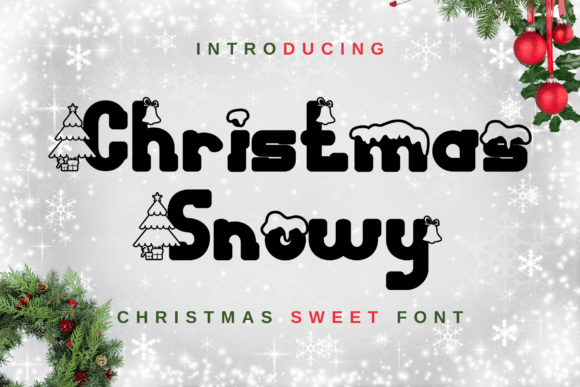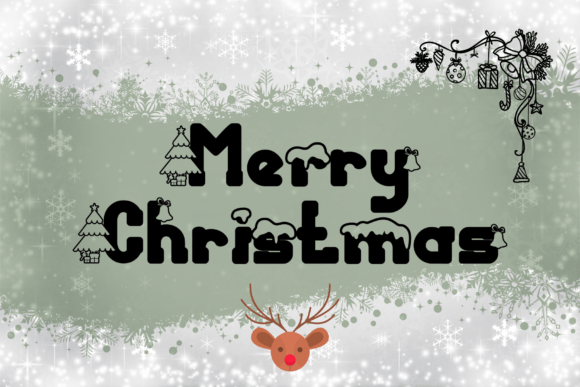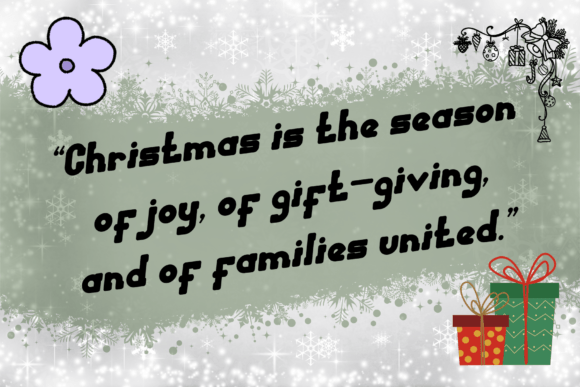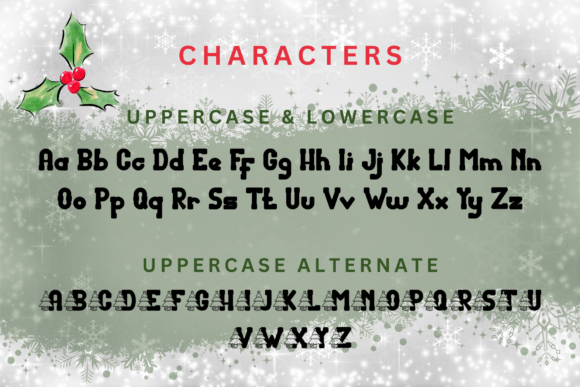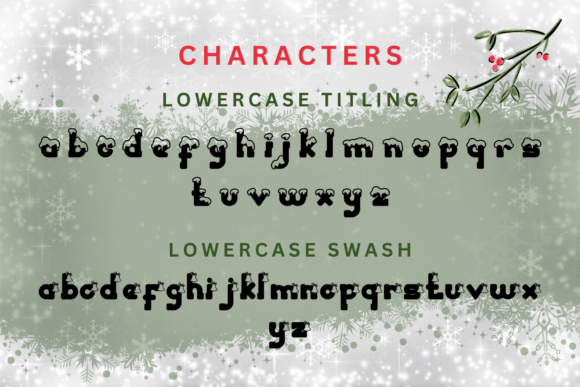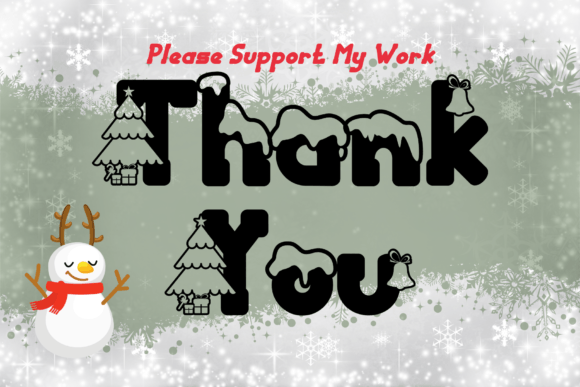
A Snowy Touch to Your Designs
It’s that time of the year when creativity takes over, and our imagination runs wild with festive ideas. You’re rummaging through your digital font library, searching for the perfect font to give your Christmas greeting cards, logos, or business cards a charming touch. That’s when you stumble upon the Christmas Snowy Font – a delightful and festive decorative font that’s sure to captivate your audience.
This enchanting font is perfect for adding a dash of magic to your designs. With its charming appearance and PUA encoded features, it makes it incredibly easy to access all the glyphs and ligatures you need to create stunning visuals. Whether you’re a seasoned designer or a creative enthusiast, the Christmas Snowy Font is a valuable addition to your design arsenal.
Key Features of Christmas Snowy Font
- Font Family: Christmas Snowy Font is a unique, custom-designed font family that captures the magic of Christmas.
- Unique Characteristics: Features intricate, hand-drawn snowflakes and festive elements, adding a touch of whimsy and wonder to any design.
Designer Review: Christmas Snowy Font
As a designer, I was excited to dive into the Christmas Snowy Font and see how it could bring some festive cheer to my projects. Here’s my honest review!
- The font’s intricate snowflake design is a great addition to any winter-themed project. It adds a touch of magic and whimsy that’s perfect for the holiday season.
- The font’s size and spacing are well-balanced, making it easy to read even in smaller sizes.
- The font’s high-quality vector design ensures that it looks crisp and clear on both digital and print materials.
- The font is quite limited in its usage – it’s specifically designed for Christmas and winter-themed projects, so it might not be suitable for other types of projects.
- The font’s design can be a bit overwhelming if used in large quantities or in complex compositions.
Overall, I think the Christmas Snowy Font is a great addition to any designer’s toolkit – but only for specific projects. It’s perfect for adding a touch of festive flair to your designs, but it might not be the best choice for more general use. With some careful consideration of its limitations, I think this font can be a real showstopper in the right projects!
The Christmas Snowy Font is perfect for:
- Creating festive holiday cards and invitations.
- Designing winter-themed posters and flyers.
- Adding a touch of holiday magic to social media graphics.
For best results, use the Christmas Snowy Font in conjunction with other winter-themed graphics and colors.